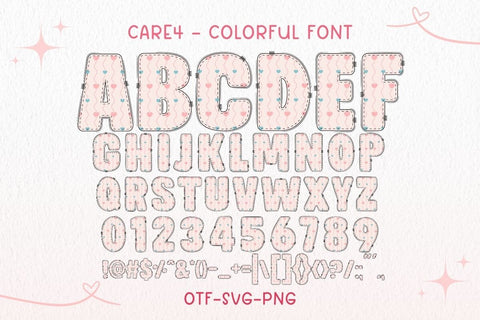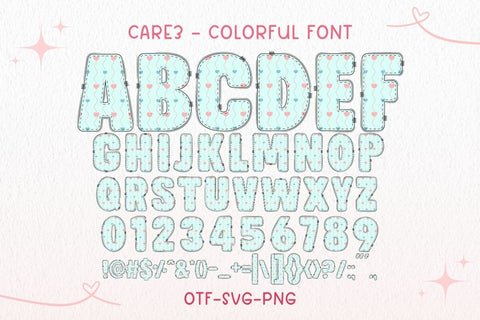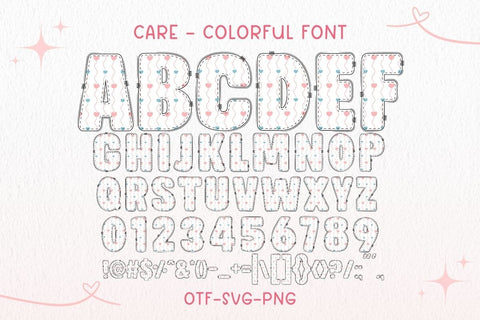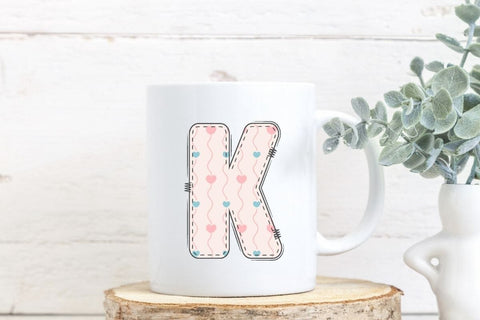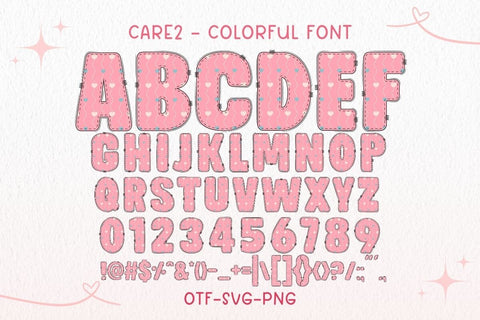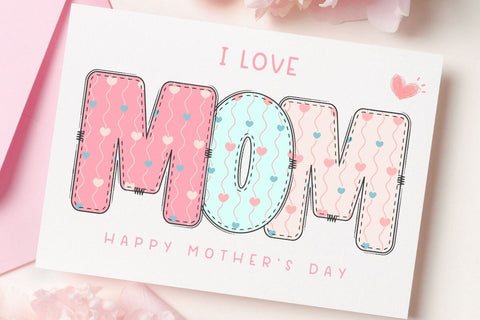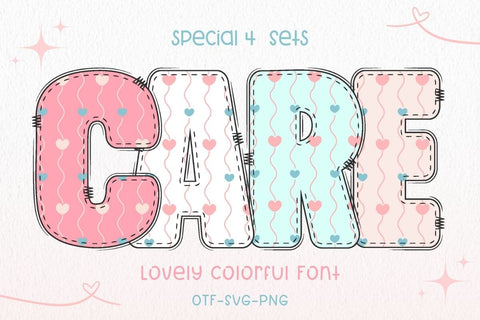
Care - Colorful Font
CARE is a lovely colorful display font with pastel heart patterns and a stitched patchwork look, perfect for Valentine’s, Mother’s Day, and cute designs. You’ll get 4 color sets in OTF, SVG, and PNG formats – ideal for sublimation, t-shirt printing, mugs, and more!
Perfect for:
– Mother’s Day crafts
– Valentine’s Day cards
– Apparel, tote bags, mugs
– Cute signage, kid-themed designs, and more!